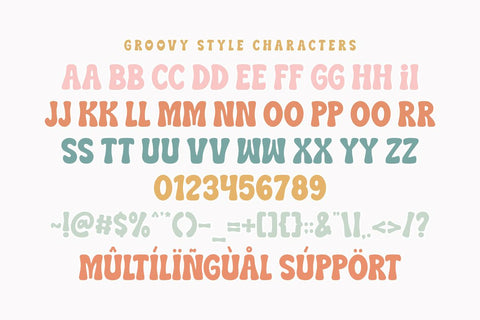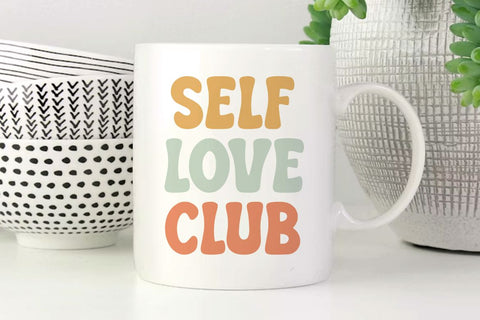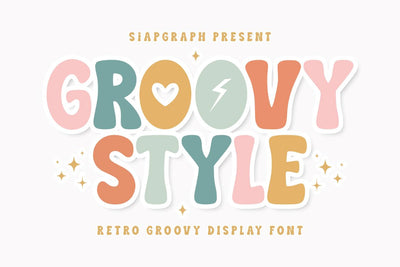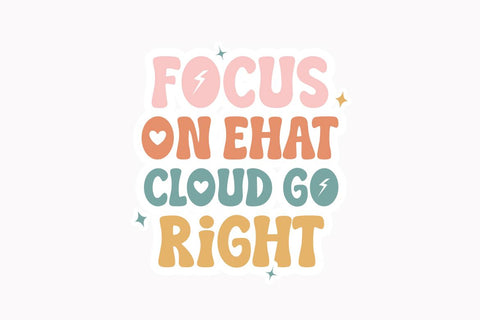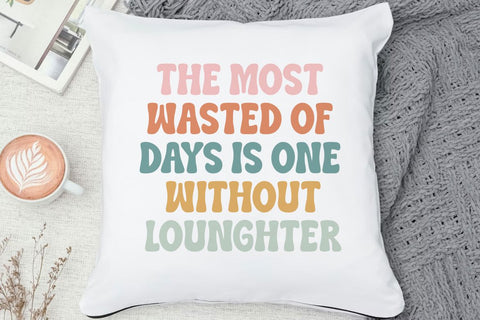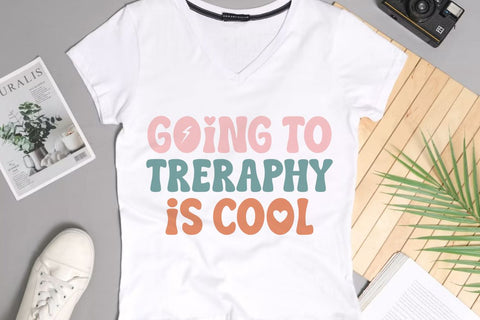
Groovy Style - Retro Groovy Font
Groovy Style is a retro groovy display font that embodies the vibrant, nostalgic spirit of 1970s design with a fresh and playful modern twist. Featuring chunky, wavy letterforms accented with iconic symbols like hearts and lightning bolts, this typeface is crafted to bring an optimistic and energetic mood to your creative projects. Its bold, clean lines are specially optimized for the crafting community, ensuring a seamless and easy cutting or weeding experience for all your vinyl, sublimation, and digital design needs.
Perfect for: creating high-converting SVG cut files, personalized retro-themed t-shirts, vibrant stickers, custom party invitations, school posters, and playful social media branding. Whether you are stocking a professional Print on Demand (POD) shop or creating a unique DIY gift, this font provides the readability and personality needed to make your designs stand out.
Great for holiday themes such as Back to School season, Birthdays, Music Festivals, and Summer parties, adding a cheerful and groovy vibe to all your seasonal designs!